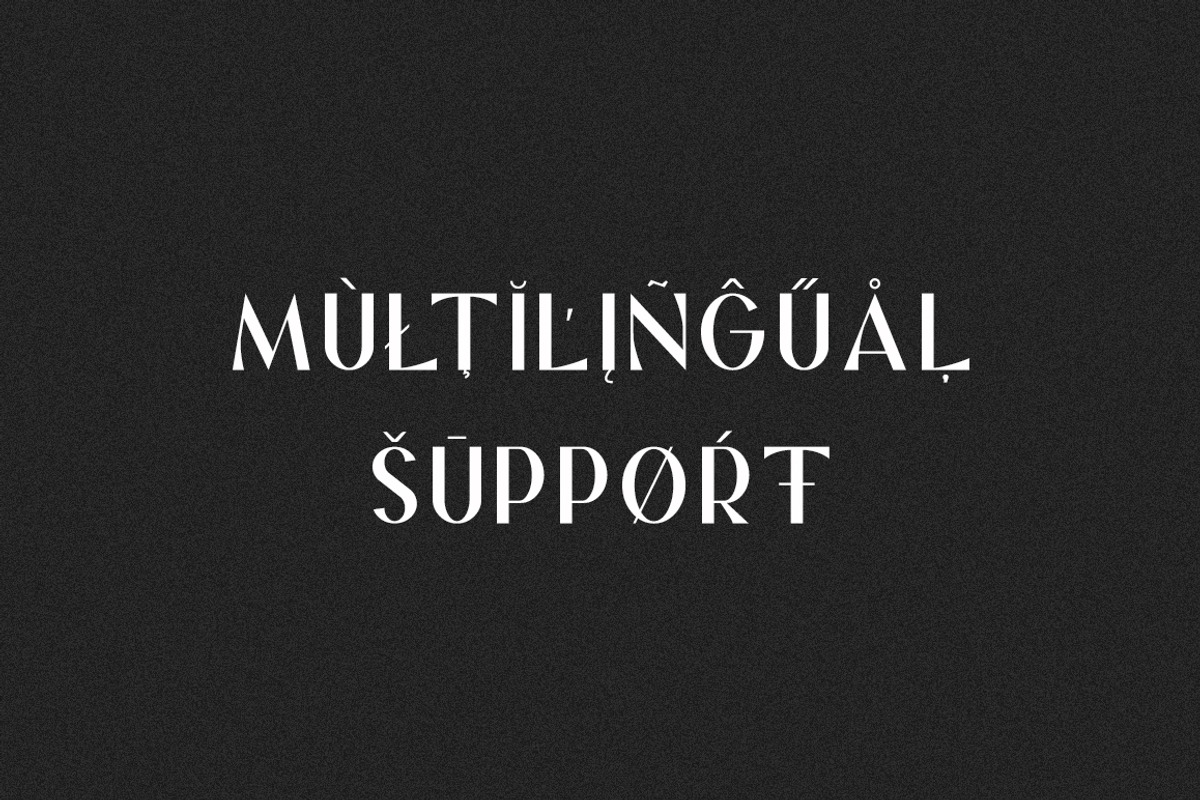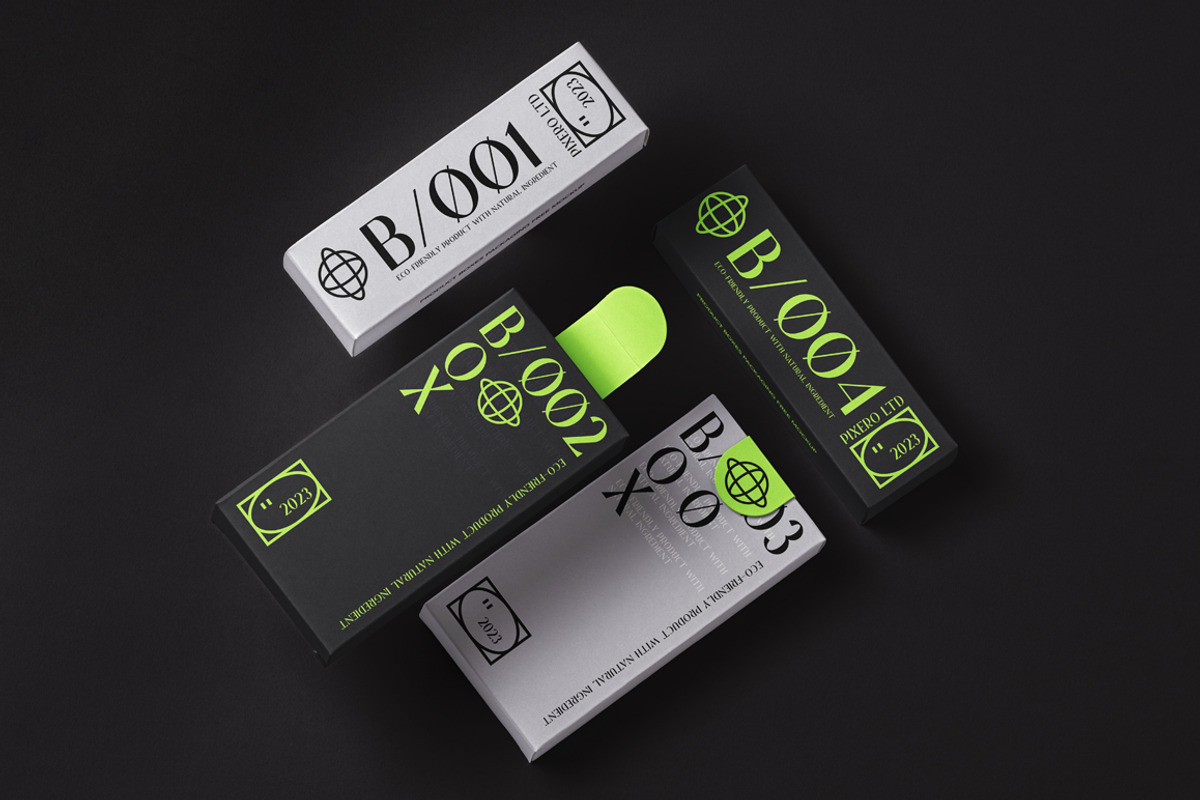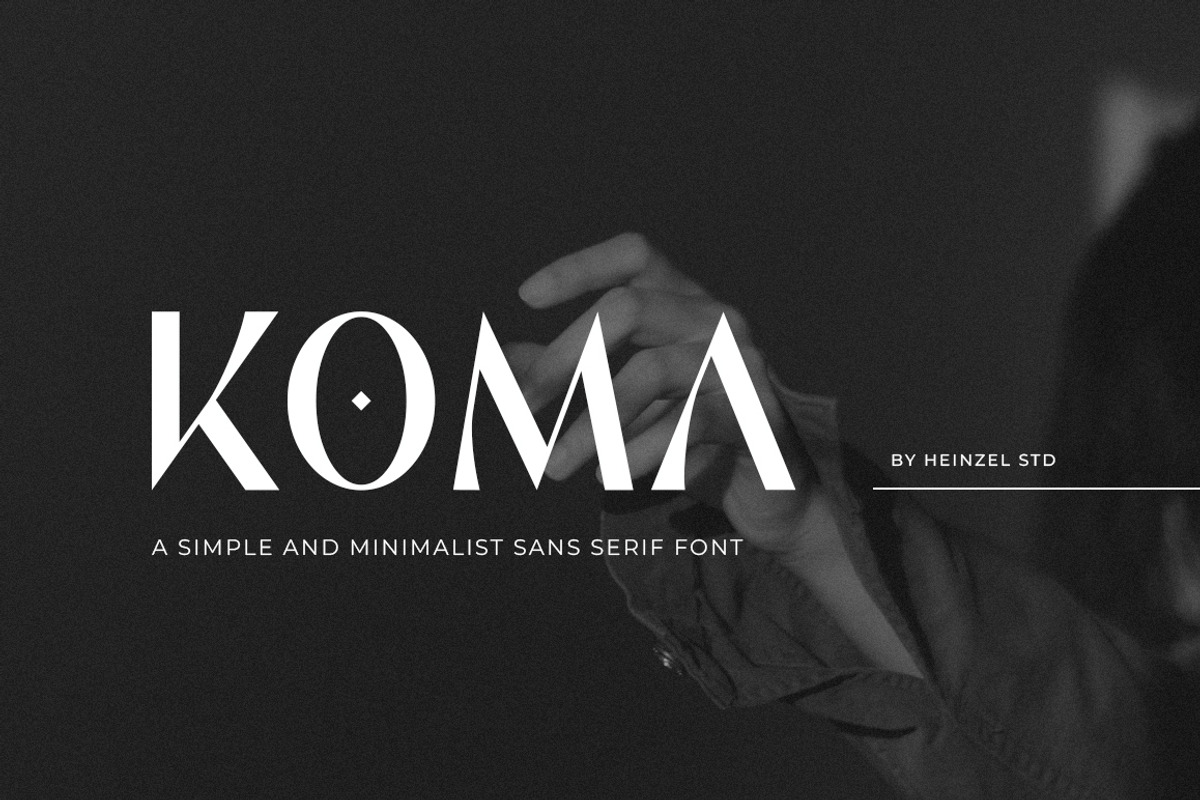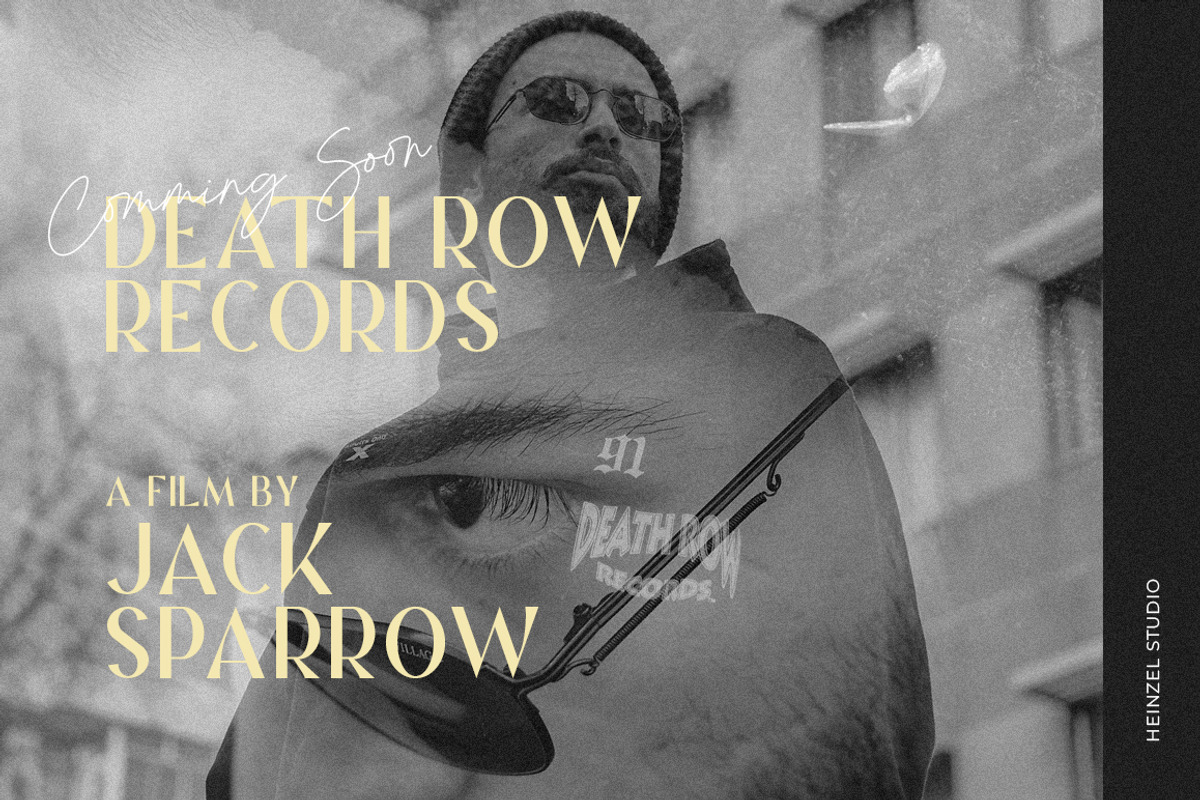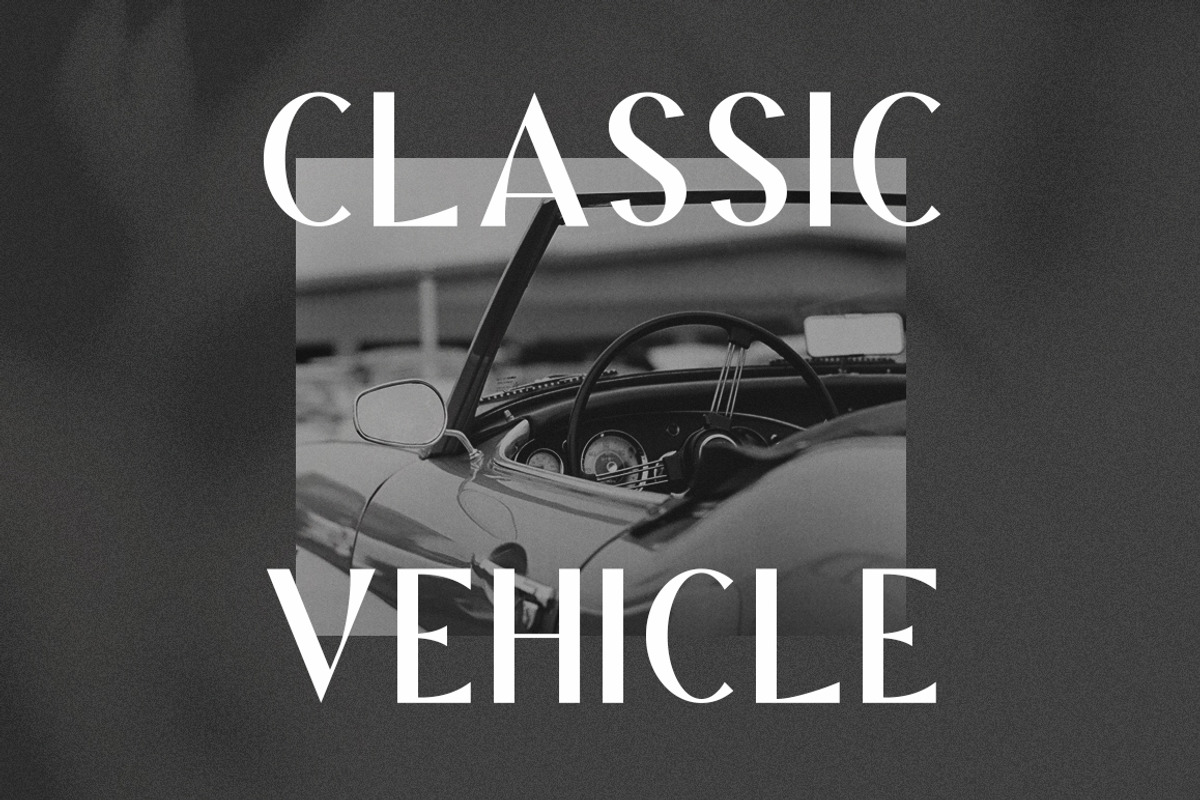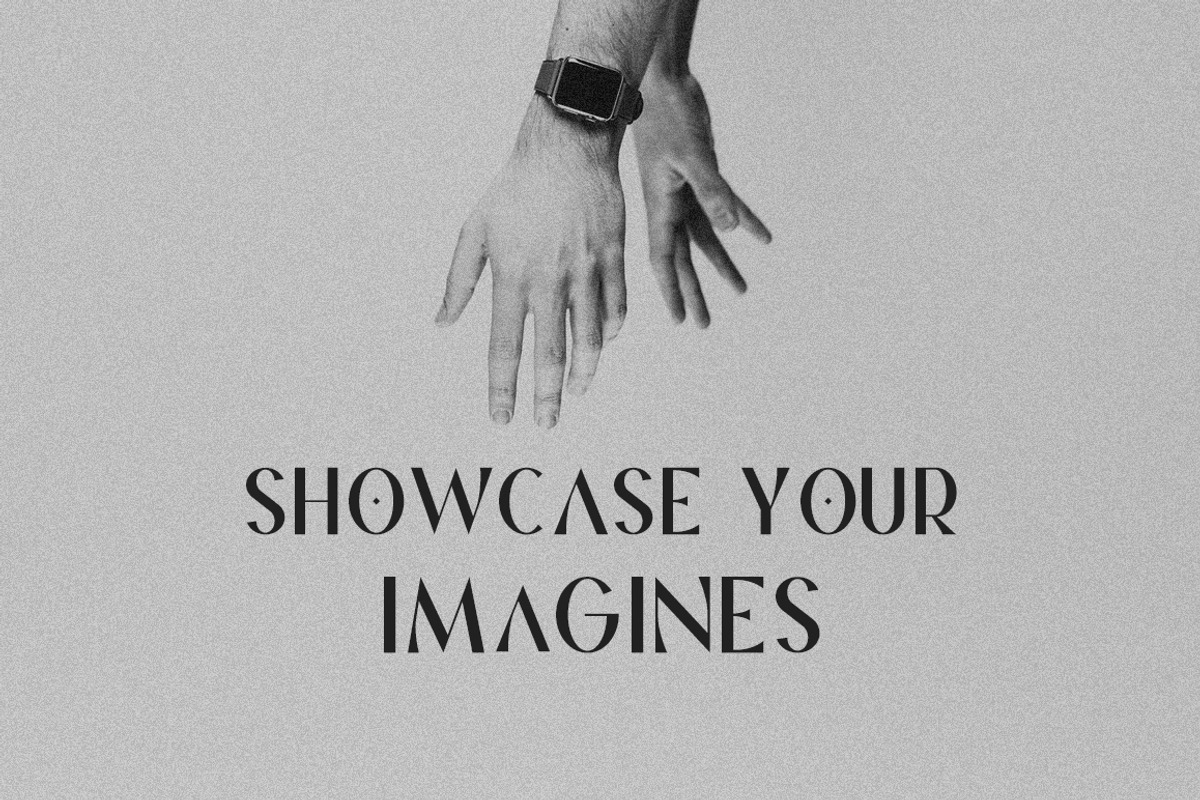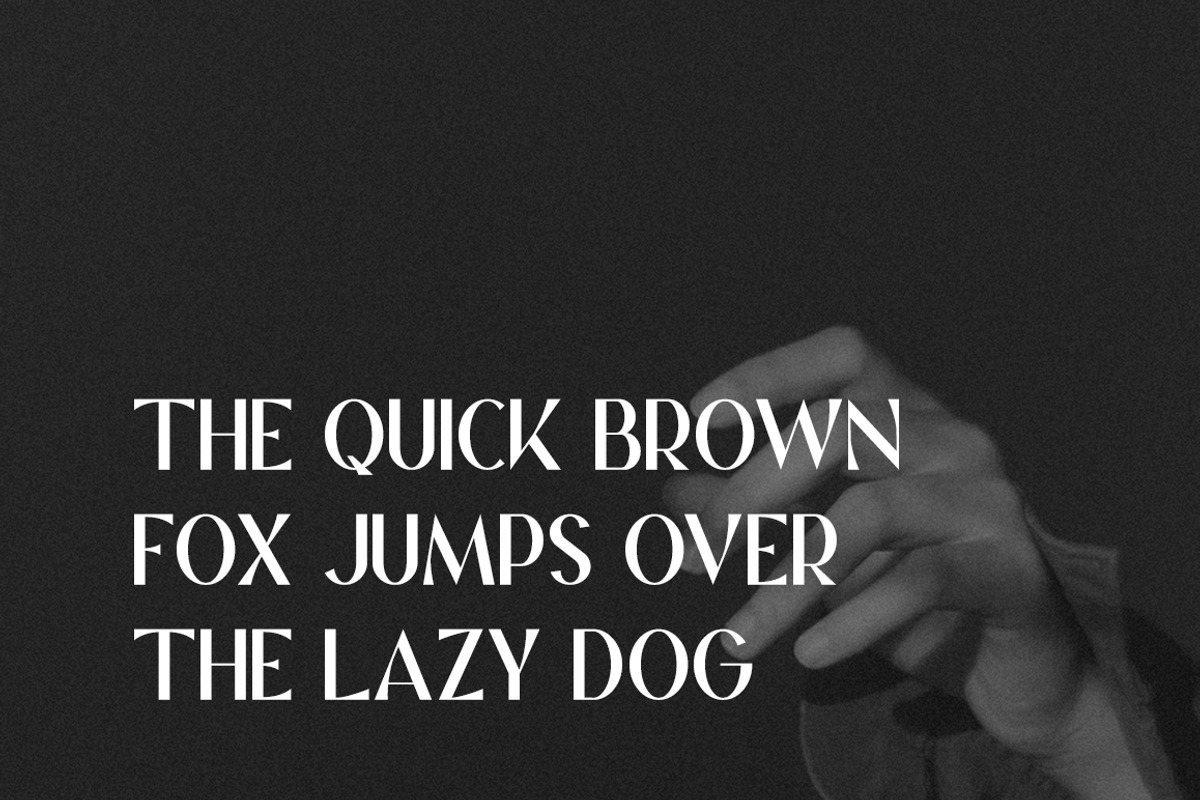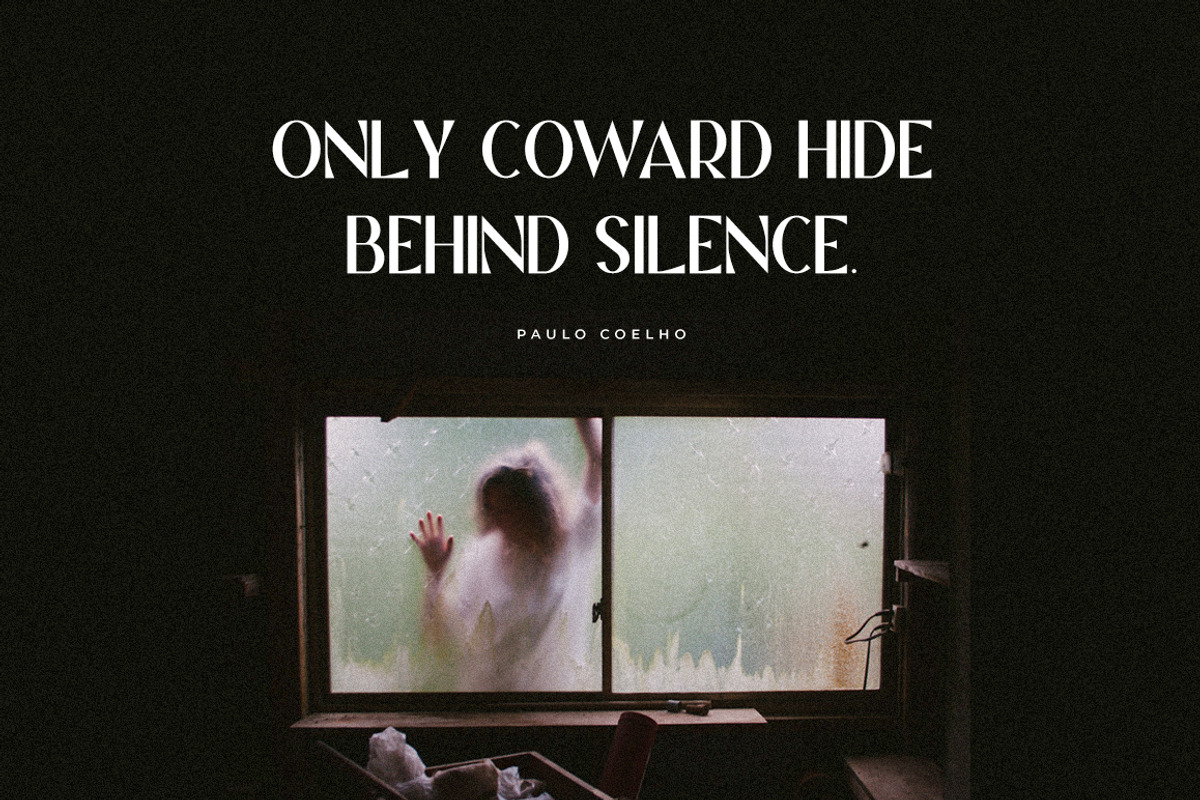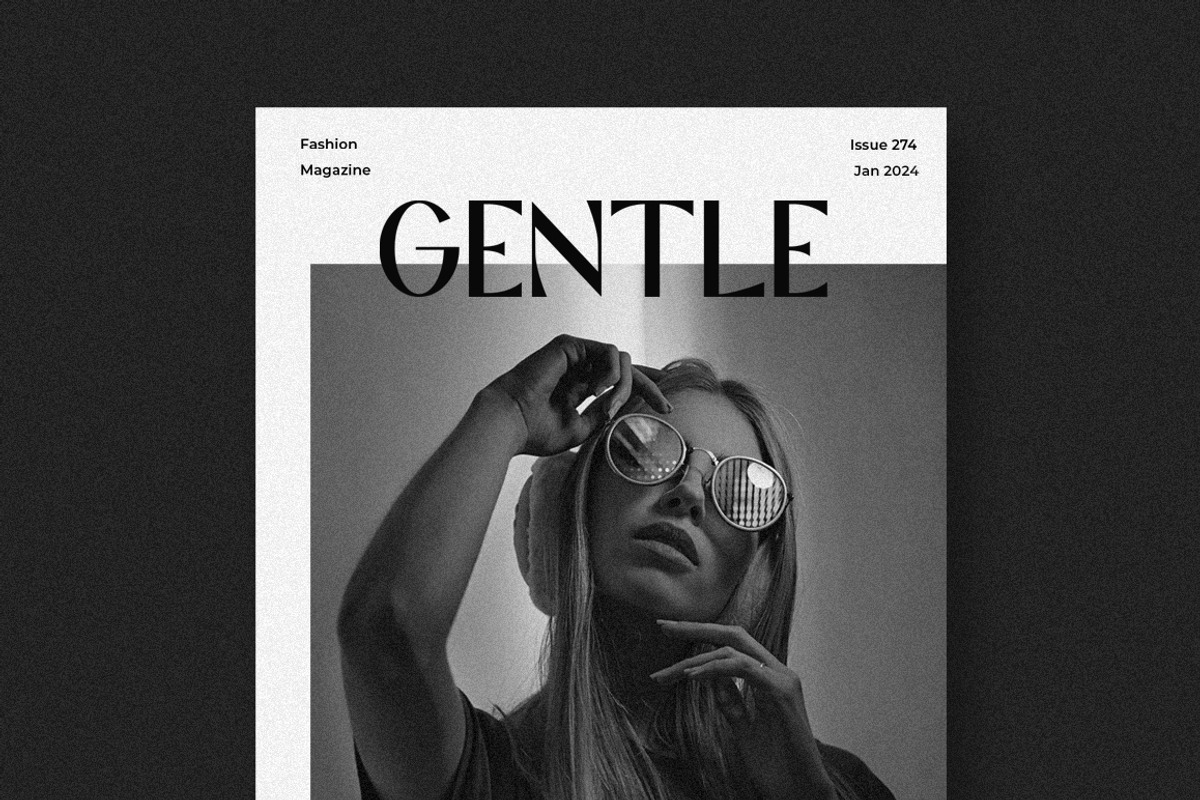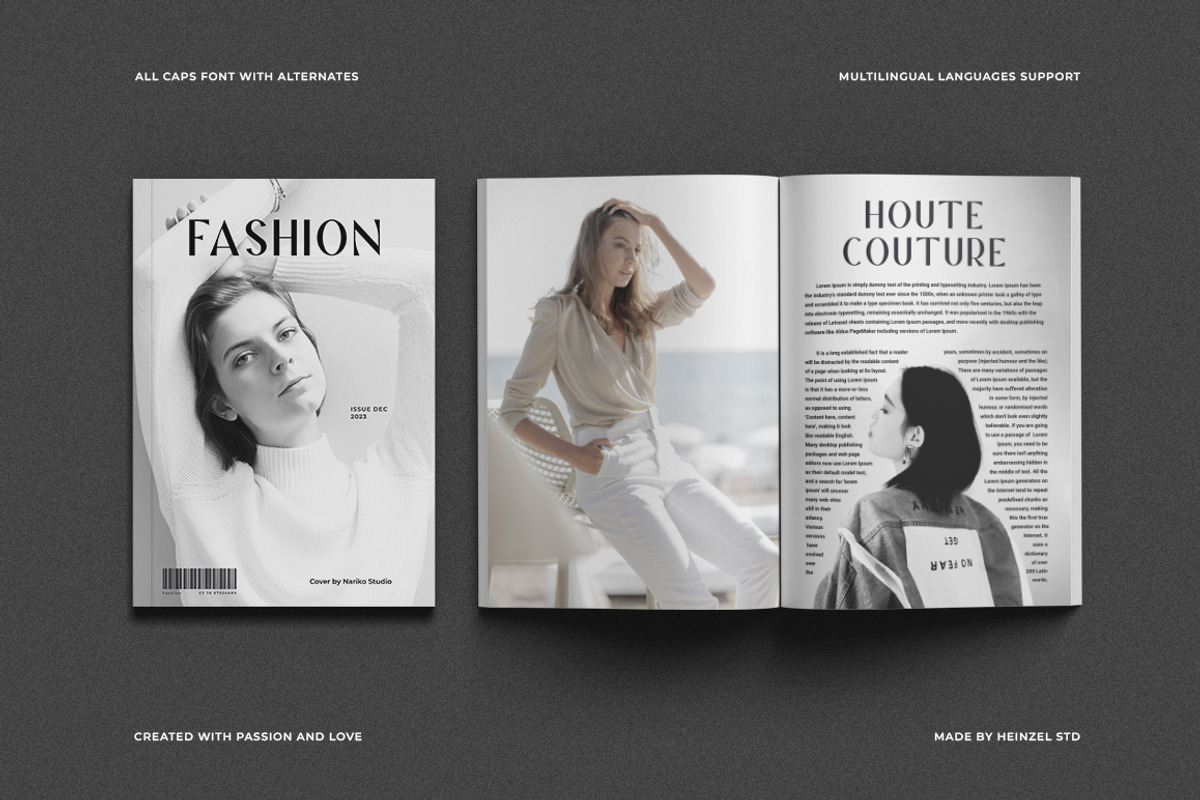
Koma - Minimalist Sans Serif
Koma - Modern Sans Serif and minimalist character! Koma perfect use for logos, print, collage, body text, and more! It looks minimalist a cool modern-meets-vintage look to any piece.
Koma Regular version, sans serif font (ALL CAPS), numerals and more punctuations.
Multilingual support for various languages